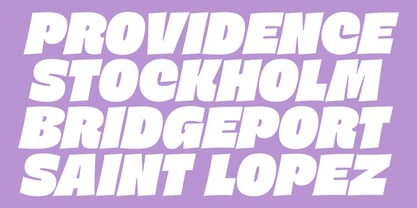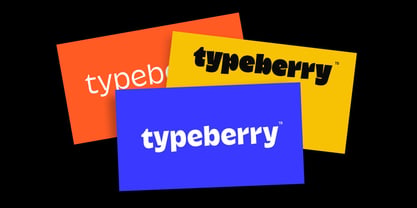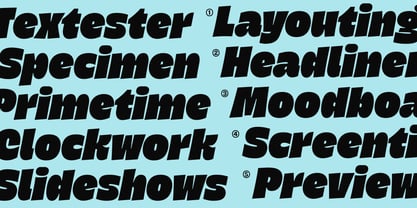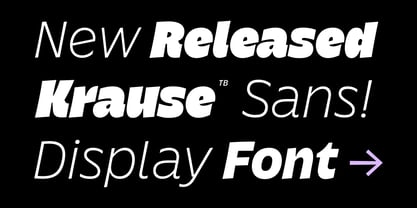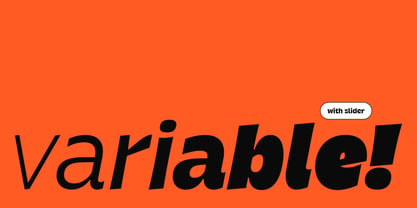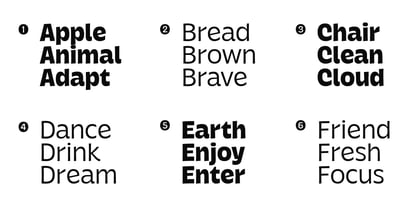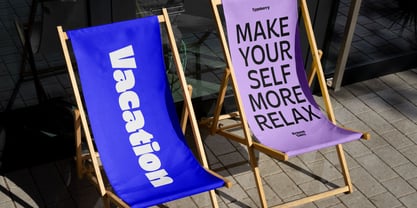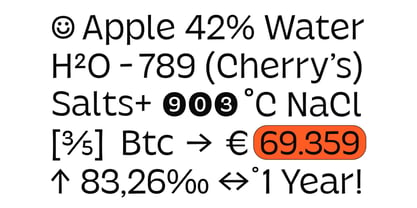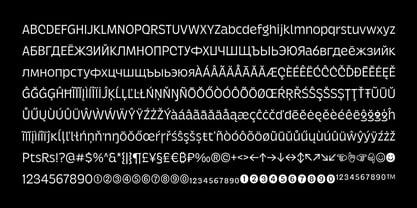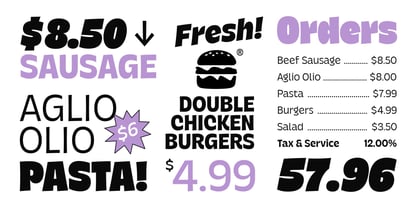
Krause
by Typeberry
The Krause Font Family was designed by Annas Alam Yahya, Bagus Arya Kirana, Michola Putra Siswandi and published by Typeberry. Krause contains 16 styles and family package options. More about this family
Krause Sans is a modern display sans serif with a bold, playful, and expressive character.
Designed with slightly irregular curves and dynamic proportions, Krause Sans delivers a strong visual voice while staying friendly and approachable.
This typeface comes in a full range of weights from Light to Black, complete with matching Italic styles, giving designers flexibility for both expressive headlines and dynamic layouts.
Krause Sans shines in headlines, posters, branding, packaging, editorial layouts, and digital graphics where personality matters. Its distinctive shapes create rhythm and contrast, making simple words feel lively, confident, and contemporary.
Optimized for display use, Krause Sans performs best at large sizes while maintaining clarity and consistency across all weights and italics.
A versatile choice for designers looking for a modern display sans with strong character and a complete font family.
Designers: Annas Alam Yahya, Bagus Arya Kirana, Michola Putra Siswandi
Foundry: Typeberry